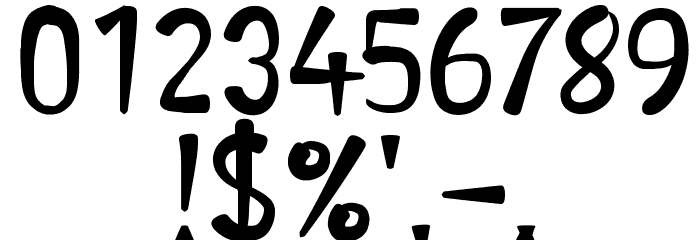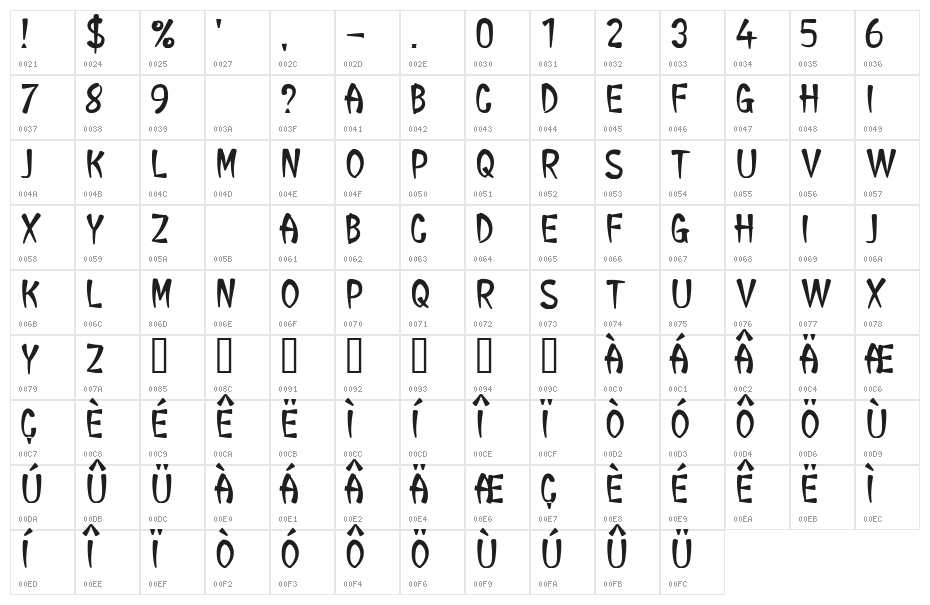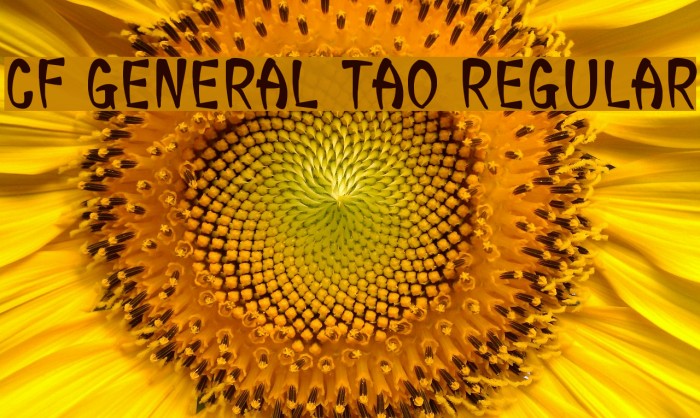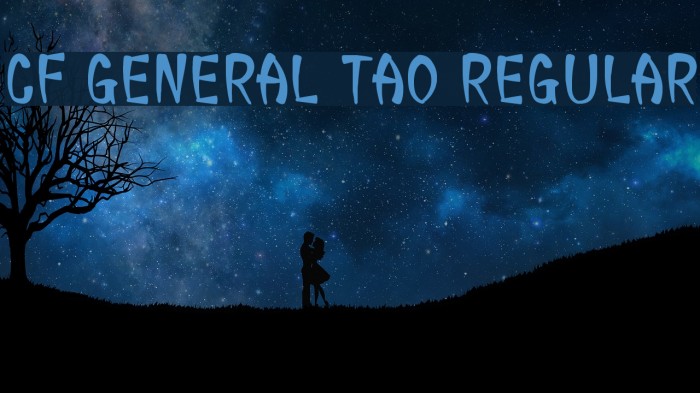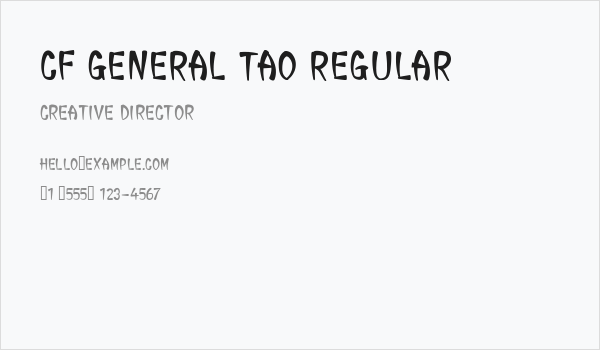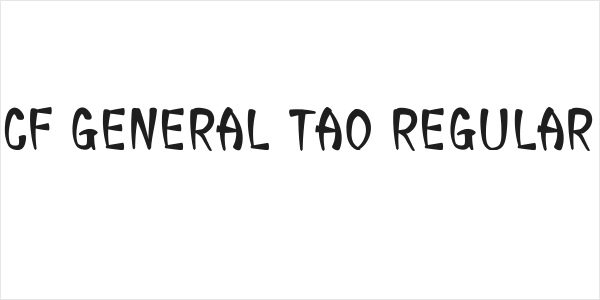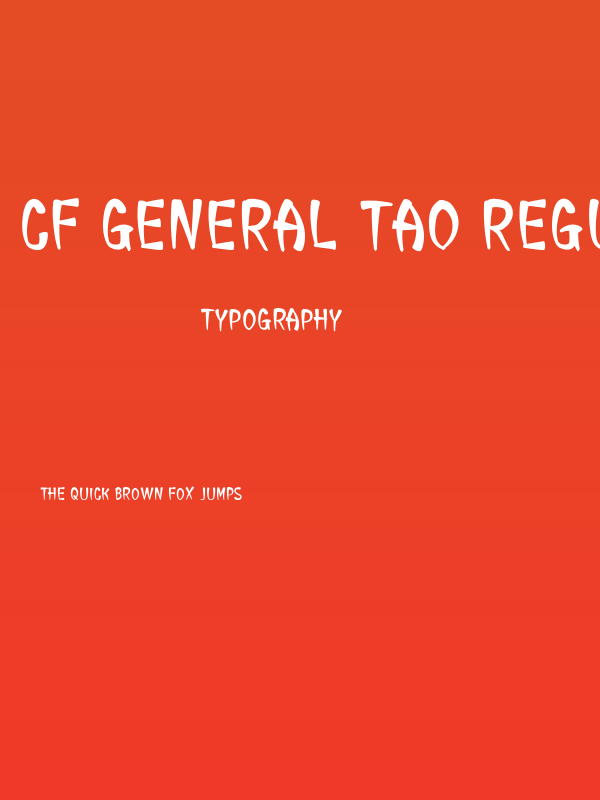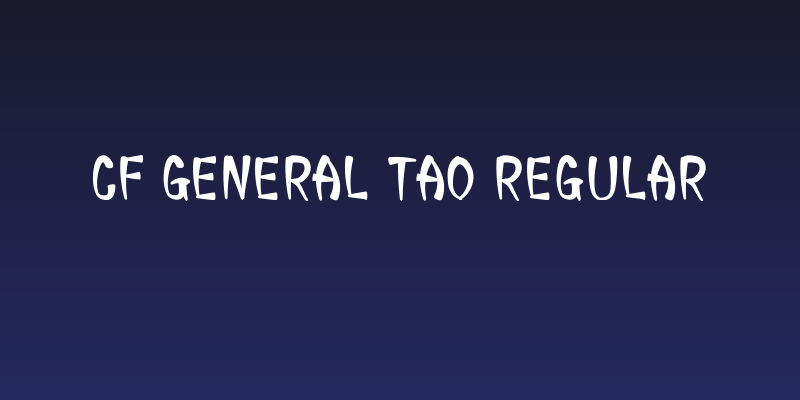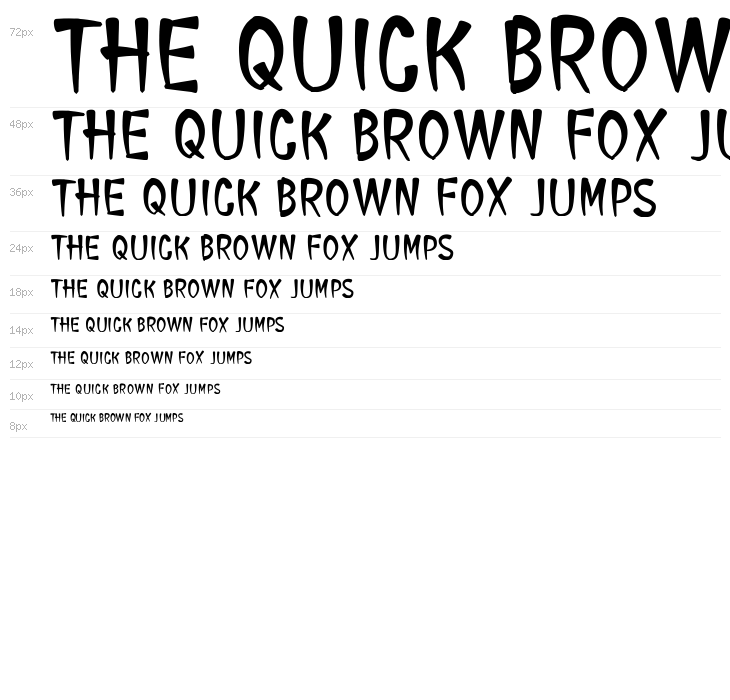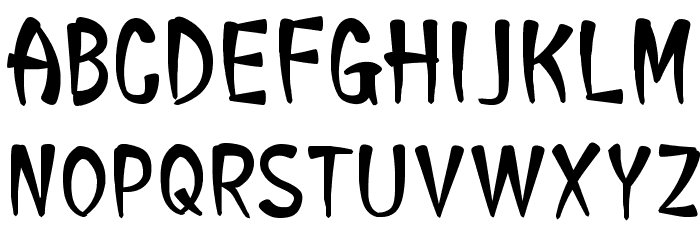
CF General Tao Regular Font
CF General Tao Regular Description
This font features a playful and energetic style with bold, rounded strokes that give it a lively and informal appearance. The characters are slightly irregular, adding a hand-drawn feel that enhances its charm. The uppercase and lowercase letters maintain a consistent weight, contributing to a cohesive look. The numbers and special characters are equally dynamic, ensuring versatility across various uses. Its unique personality makes it suitable for projects that require a touch of whimsy and creativity.
| Overall Style | Playful, Hand-drawn |
| Proposed Projects | Ideal for children's books, playful branding, casual invitations, and creative posters. |